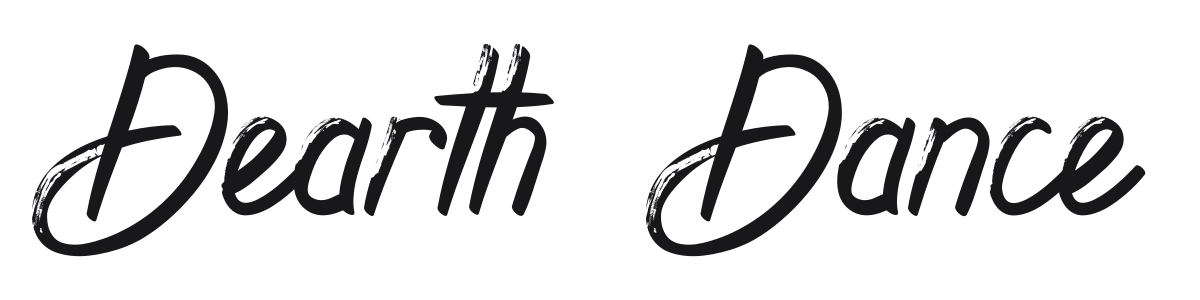
Dearth Dance
Dearth Dance is a casual brush script with rough, bristle-textured strokes and a bold italic lean. The connected characters move with a loose, spontaneous energy that sits somewhere between a sketchbook note and a street mural. It brings an organic, handmade quality to headlines, packaging, and identity work that needs personality without formality.